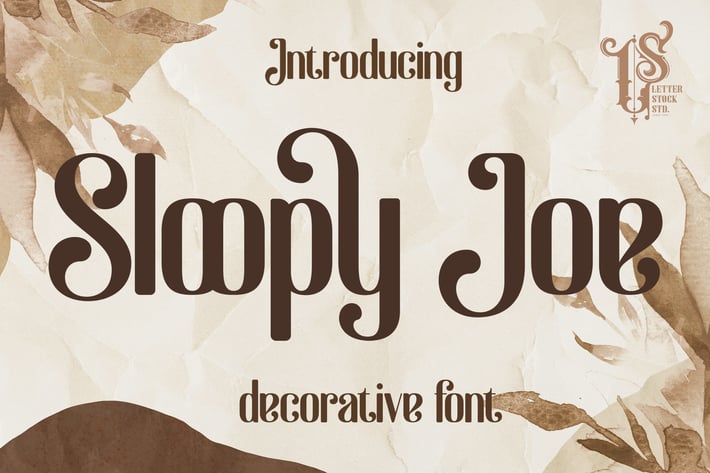
Sloopy Joe - Decorative Font
Sloopy Joe
Introducing Pinkerton font. It was inspired from a cartoon that i saw on television, and it was originally crafted by hand to add natural handmade feeling than i make it clean with pentool.
We improvise it a little bit to make a playful feel, this font is bold so and it can look strong if you use it for branding or even title for your poster design with playful decorative style.
Sloopy Joe Font is very good looking in playful decorative logotype, labels, t-shirt prints, product packaging, invitations, advertising and others.
If you looking for a playful decorative font, than this item is a good choice for you because this font have a strong playful feel.